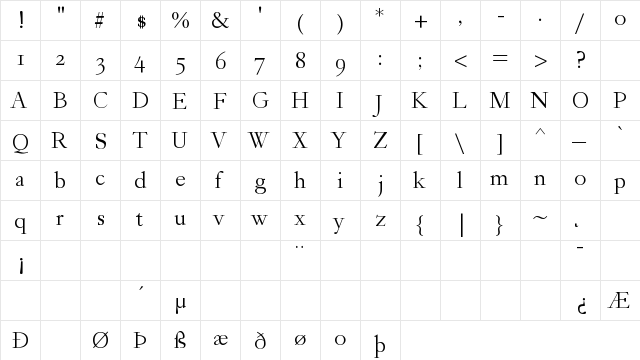
Garogier Regular
| Foundry | Rogier van Dalen |
| Designer | Rogier van Dalen |
Design Context for Garogier Typeface
Garogier is a composed and adaptable typeface that performs quietly and consistently across a wide range of design contexts.